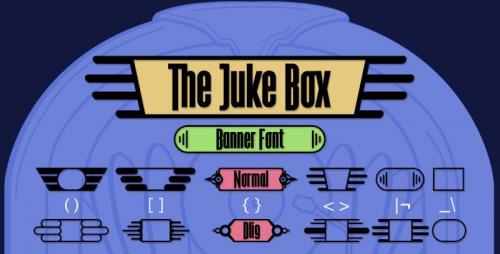
The Juke Box is a typographic experiment based on my previous font La Babaca , the new typeface is now inscribed in a frame that forms a box, to close said box the font has 12 sets of 1950s JukeBox style box closures.